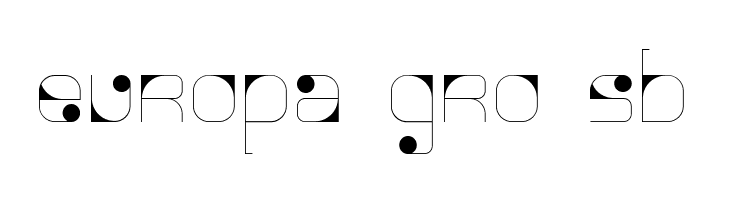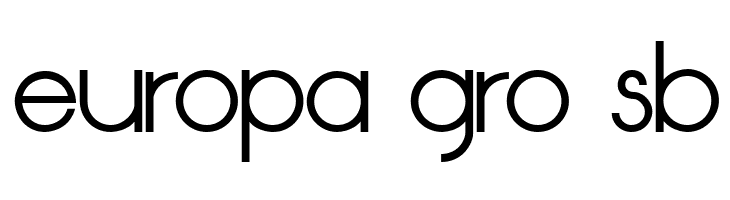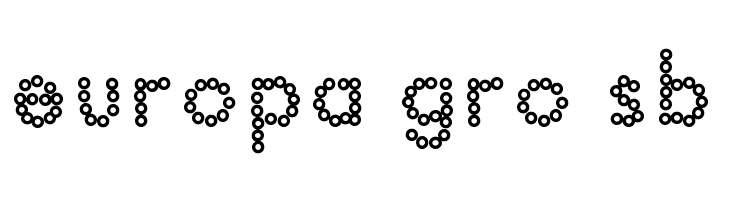
A modern, geometric font with thin lines and bold circular accents.
A geometric, modern font with bold, consistent strokes and circular elements.
A bold, geometric font with futuristic circular cutouts.